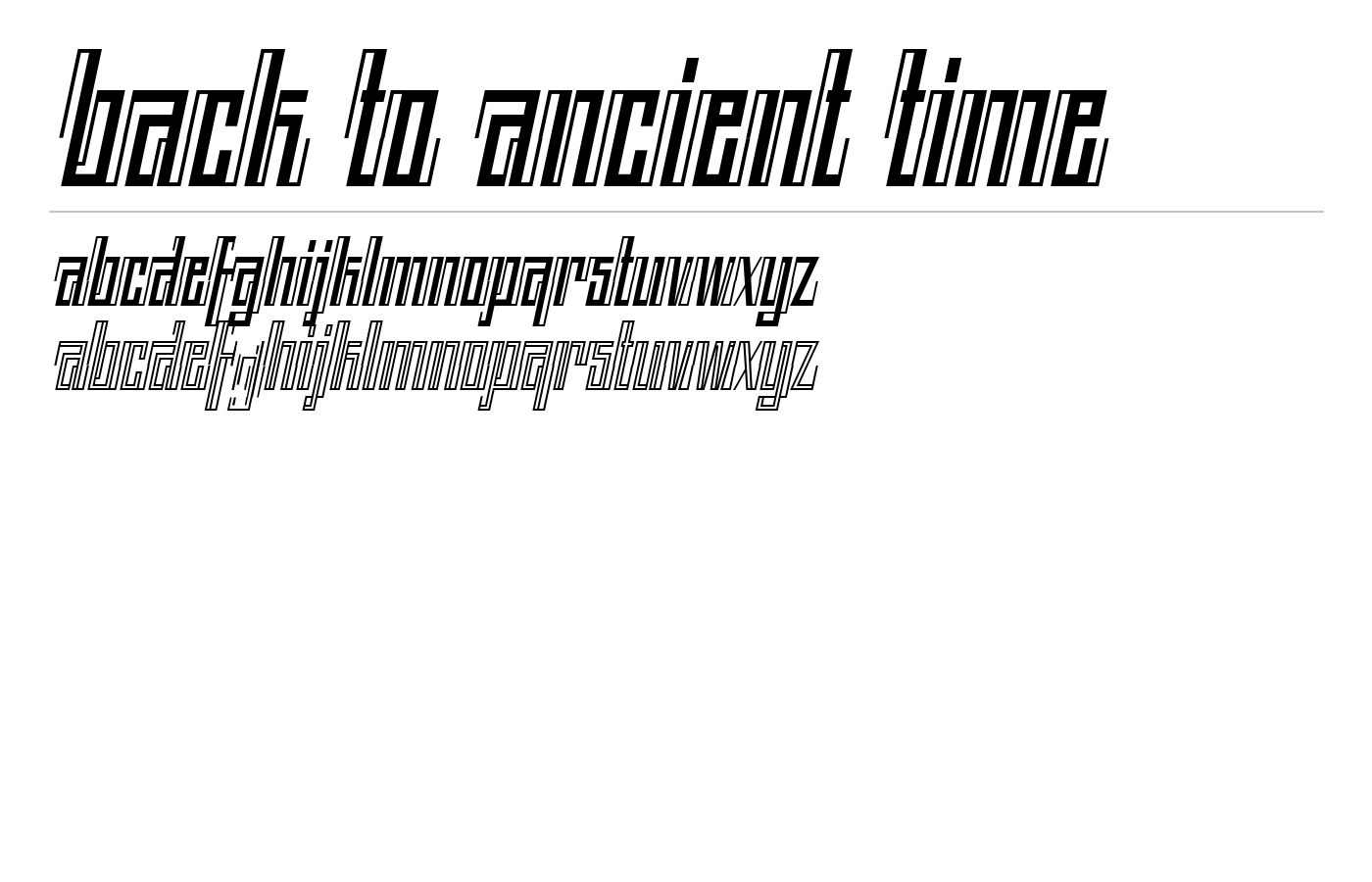
BACK TO ANCIENT TIME is a condensed, geometric sans serif font with a futuristic, angular style that combines sharp edges and clean lines. Its tall, narrow letters and high contrast stroke detail create a dynamic, energetic look, making it ideal for technology, gaming, or modern branding that aims to convey innovation and boldness. This font works best in headlines, logos, and posters where its distinctive, striking character can stand out.
BACK TO ANCIENT TIME Font
About BACK TO ANCIENT TIME Font
| Designer | Situjuh Nazara |